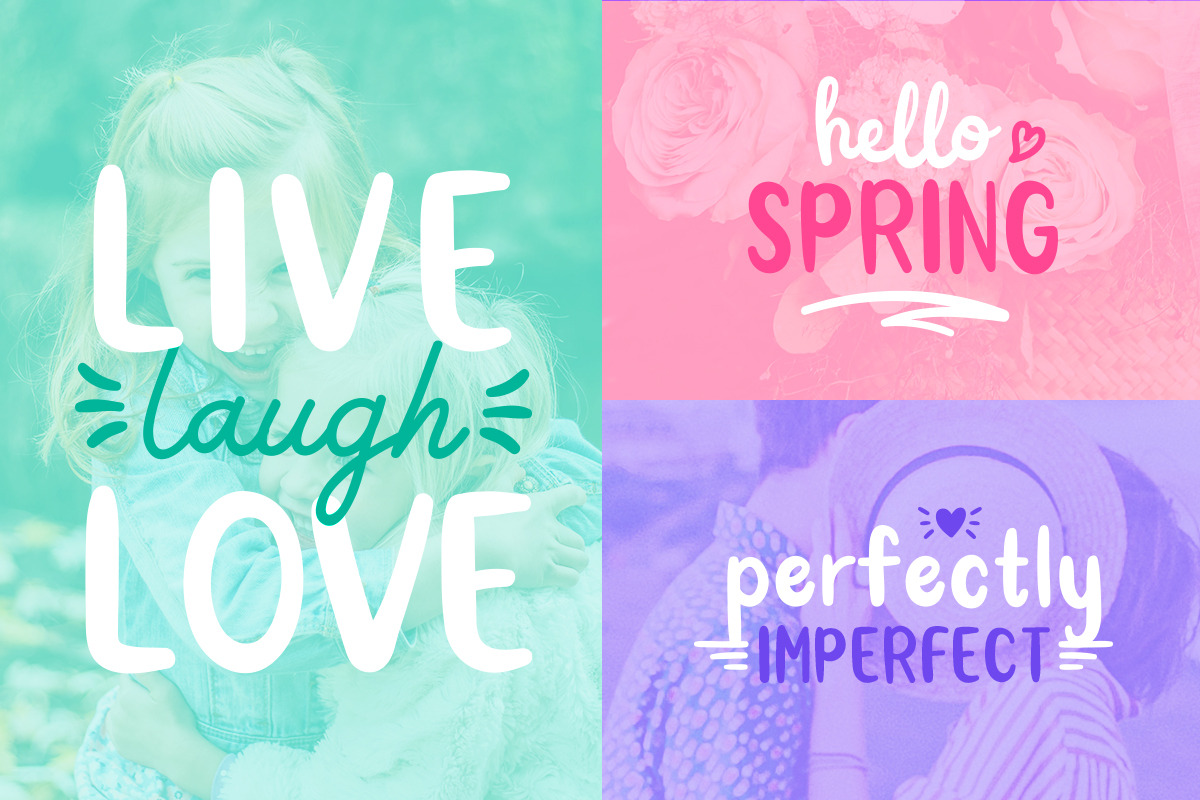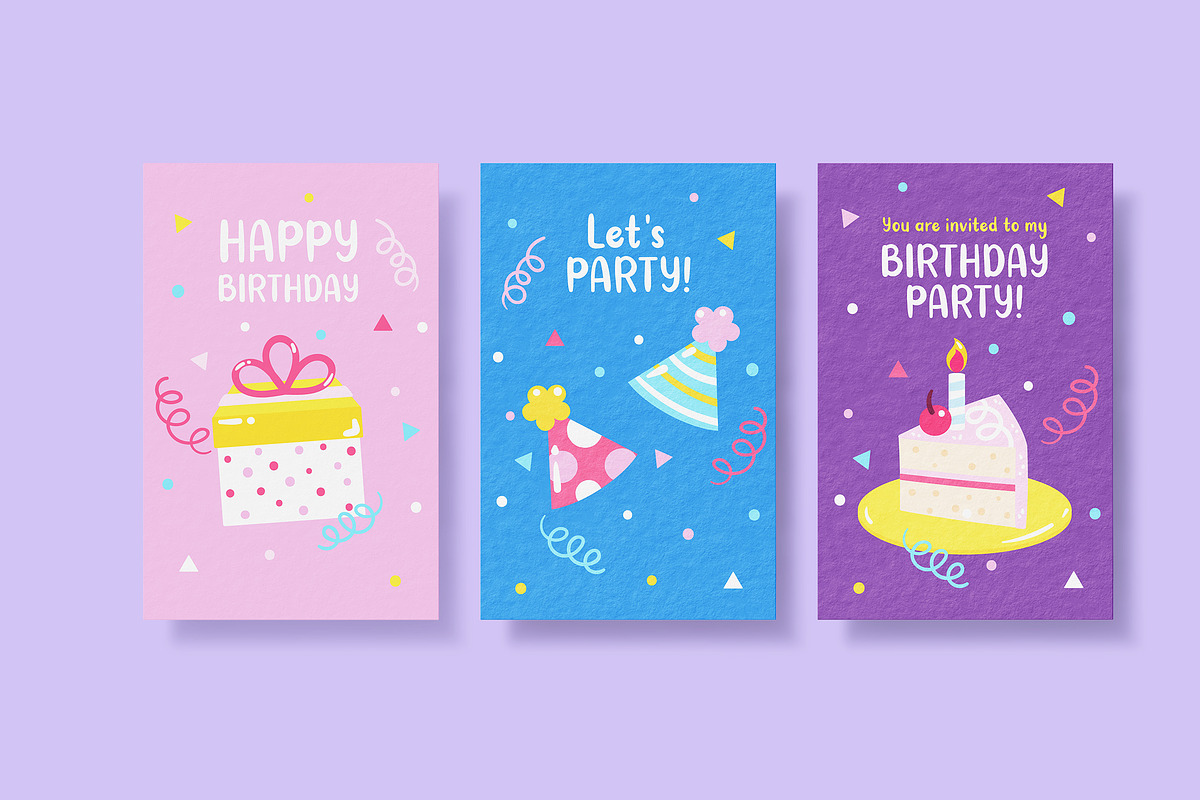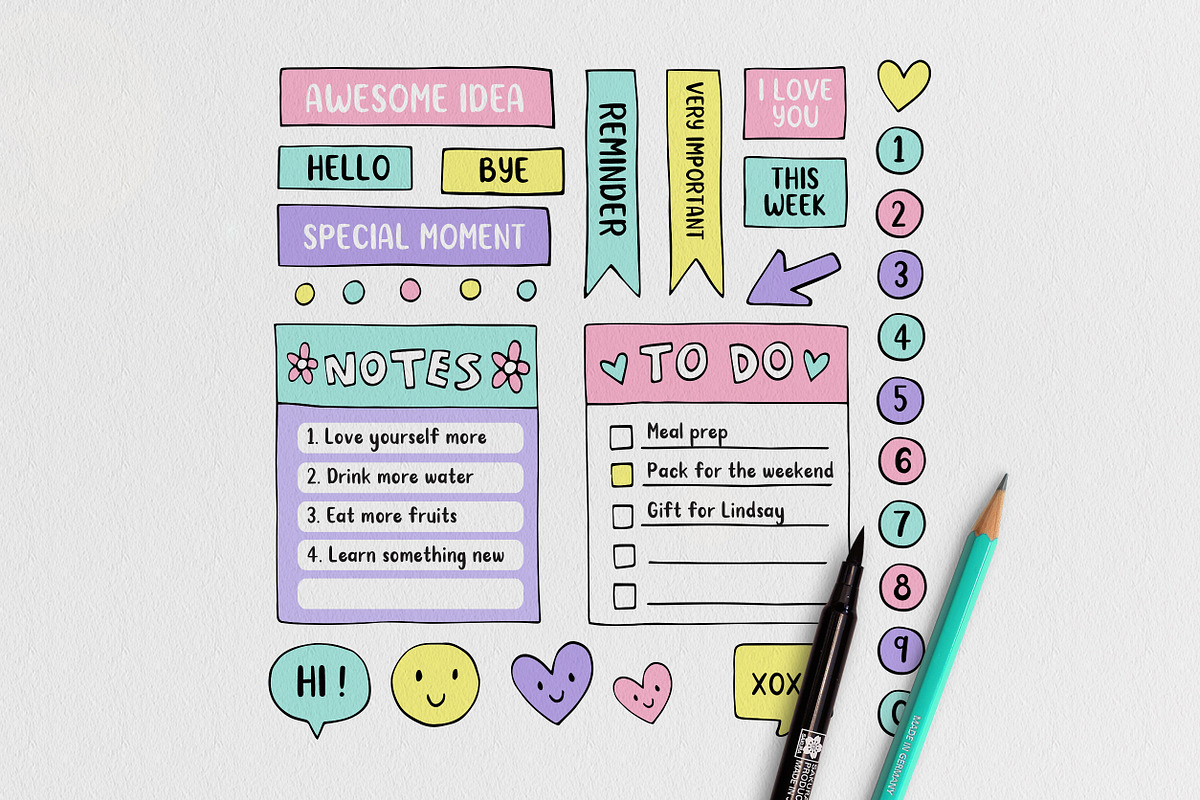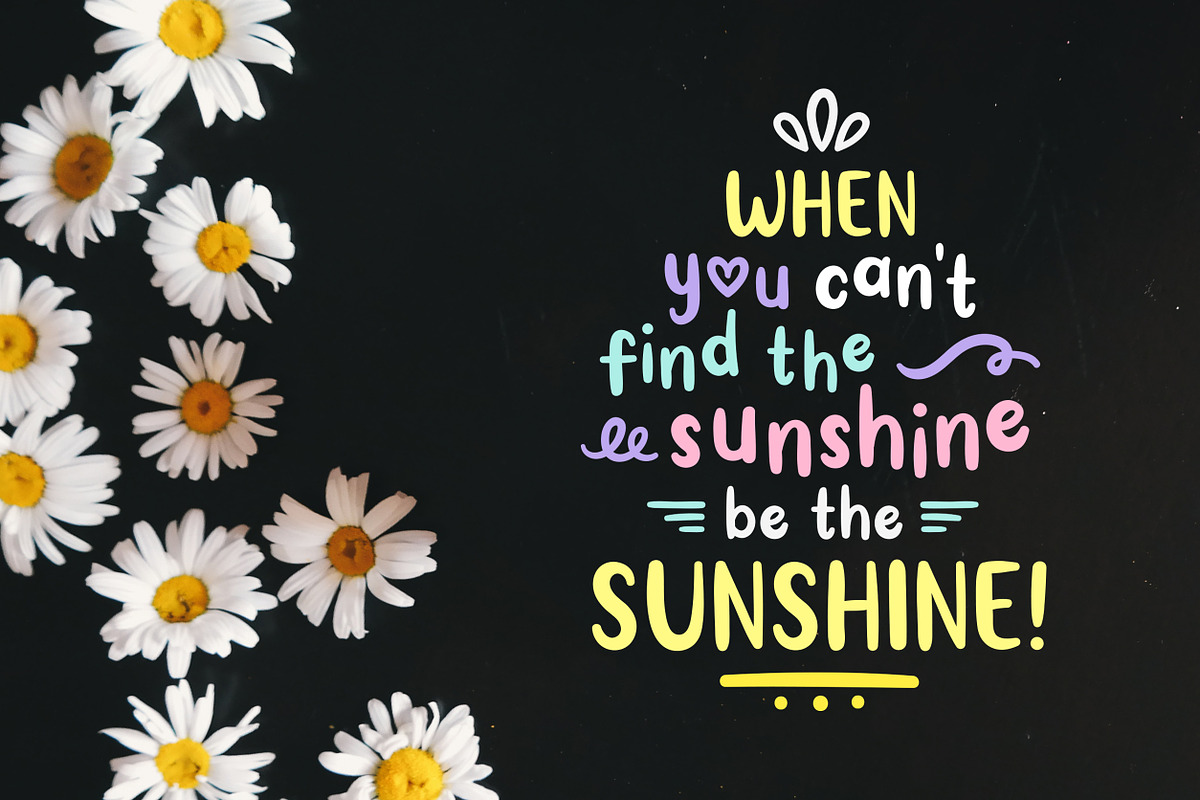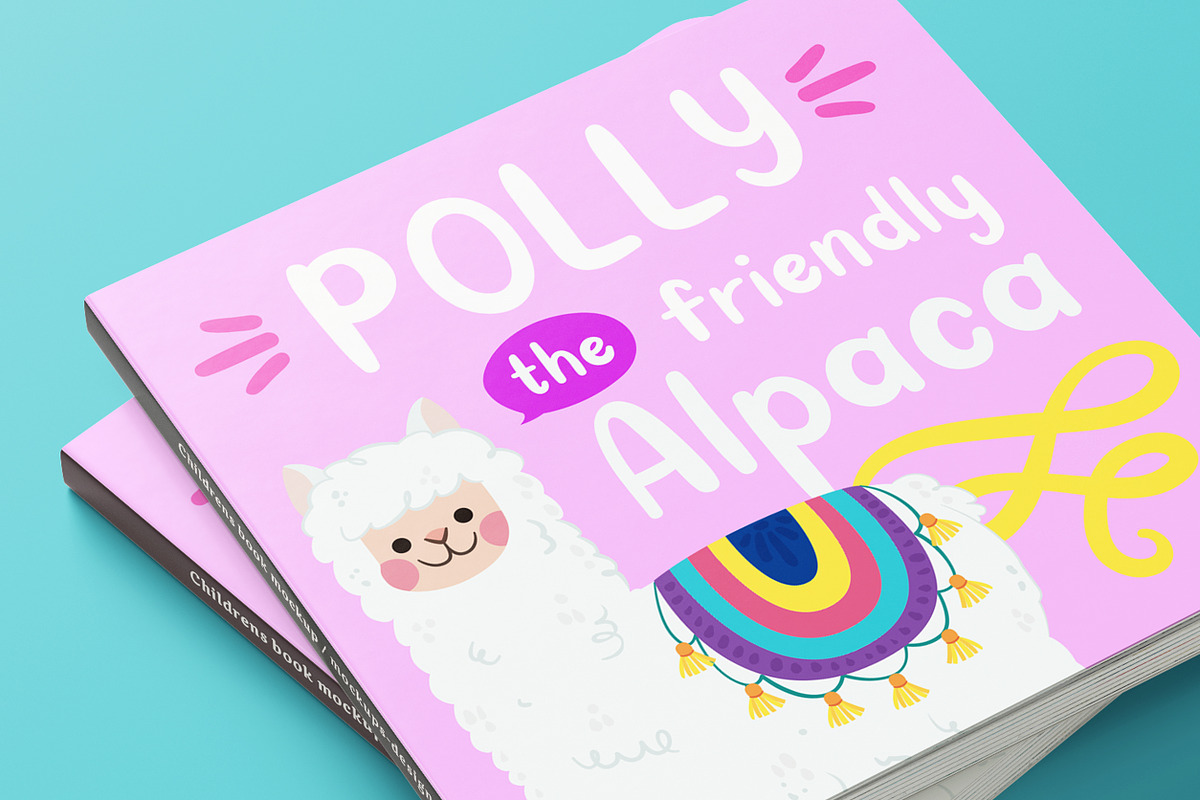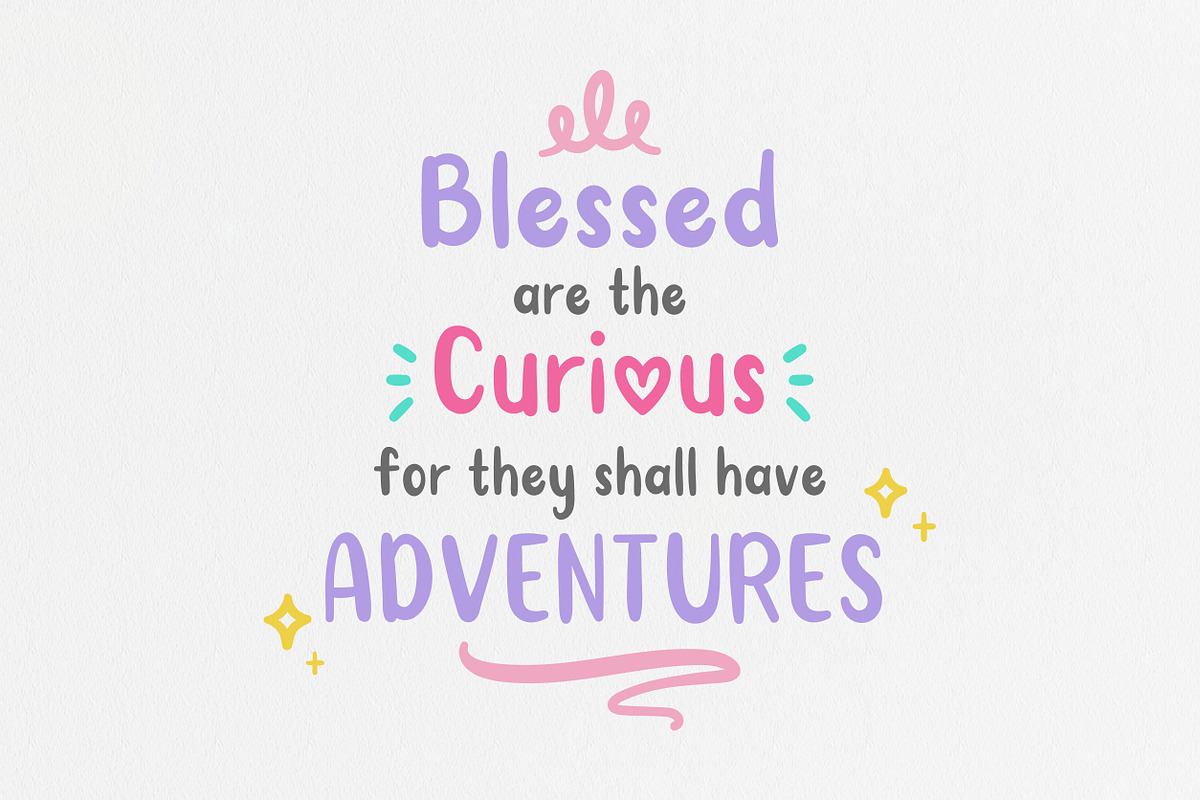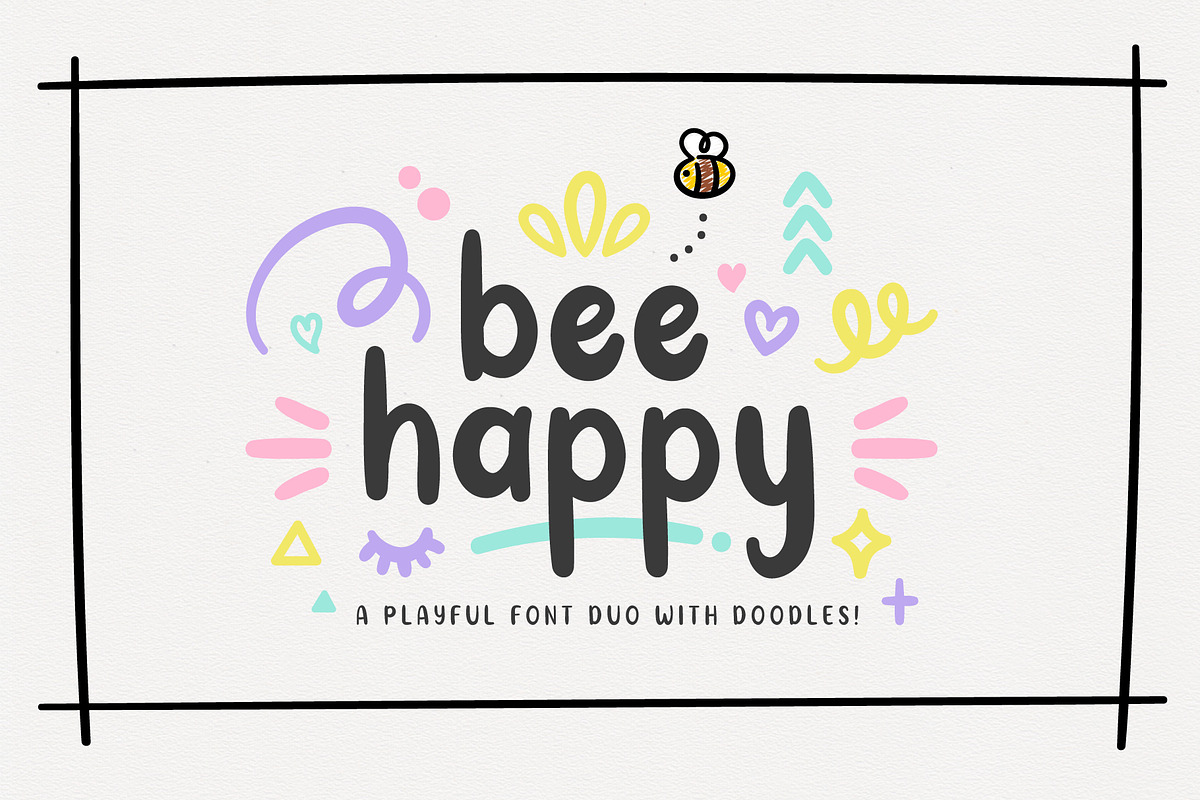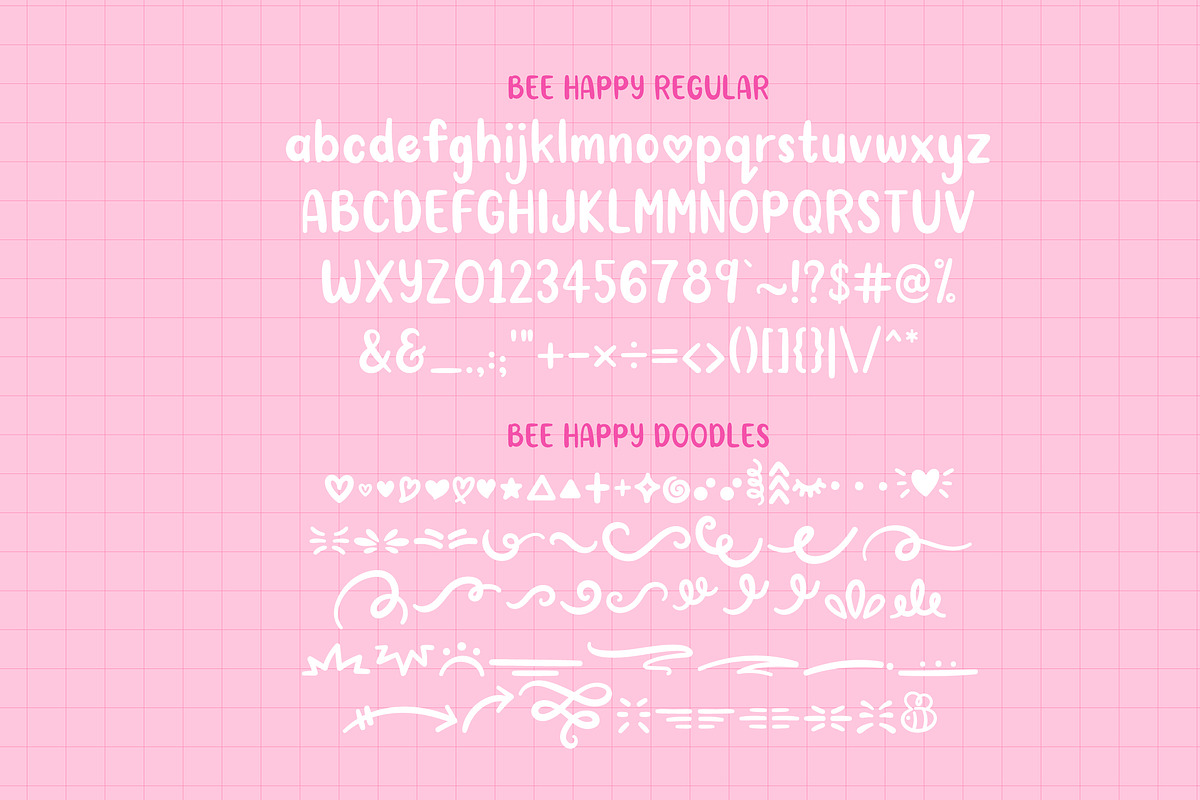
BeeHappy Font Duo with Doodles
BeeHappyis a playful font duo, comes with a set of regular and doodle fonts for you to make some fun typography work! Perfect for quotes, home decor, party invites, blog header, t-shirts, posters & absolutely any design & craft projects!
BeeHappy Font Duo with Doodles by TypeFairy fits naturally into Branding, posters, packaging, typography.